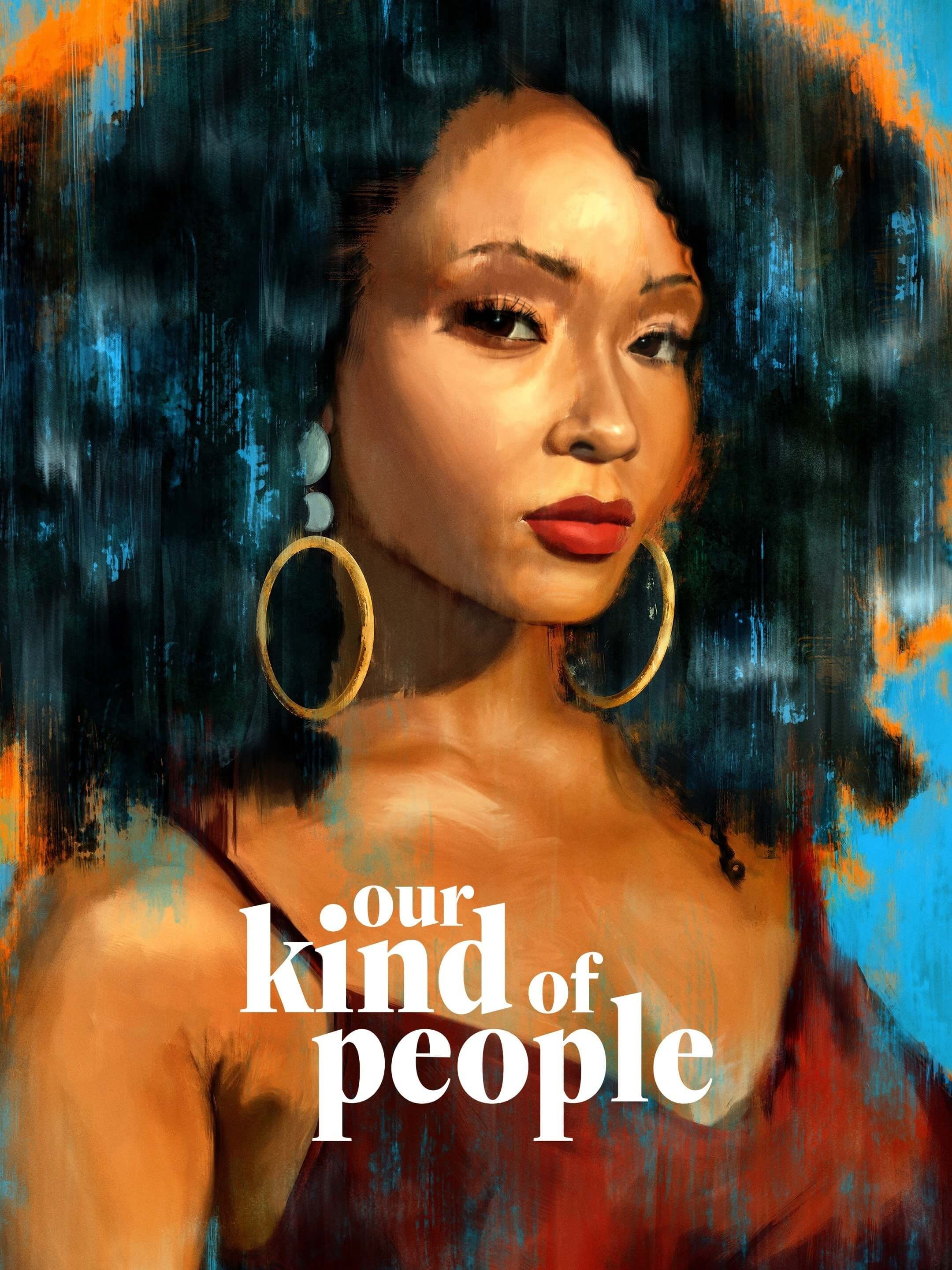
Our Kind of People Font
The series title features a serif font called Freight Display Cmp Black designed by GarageFonts. More details about the font family can be found here